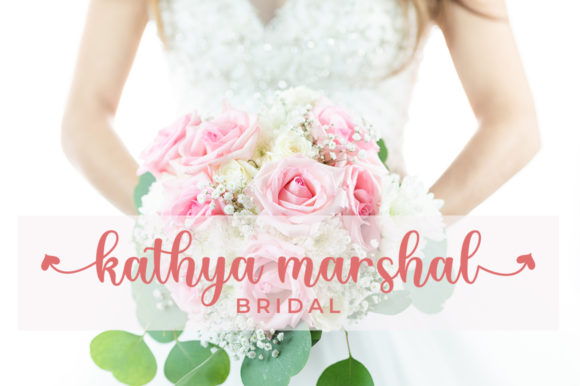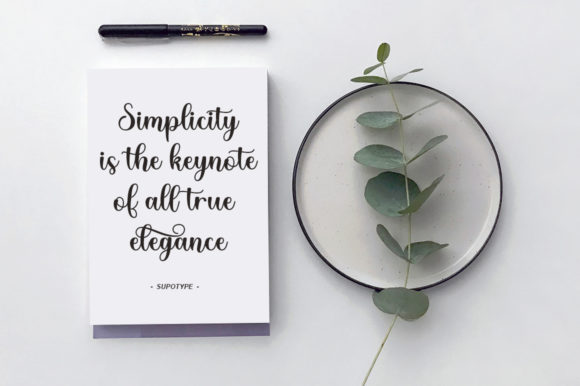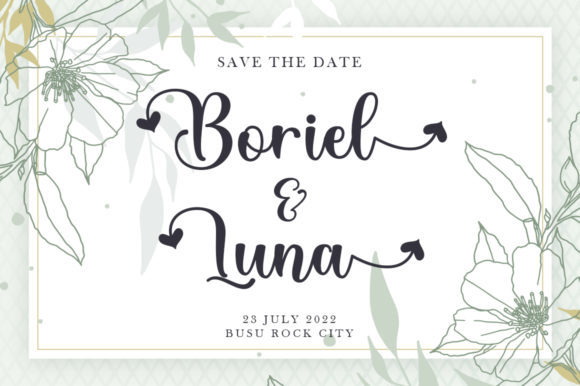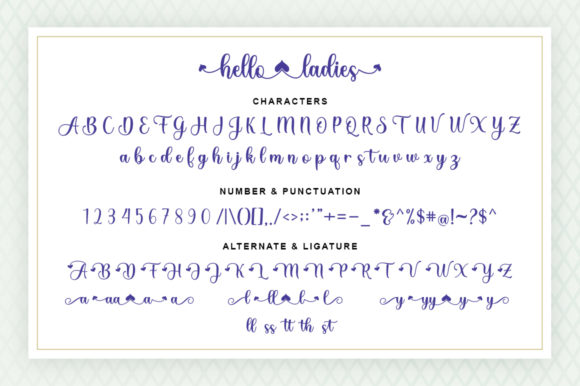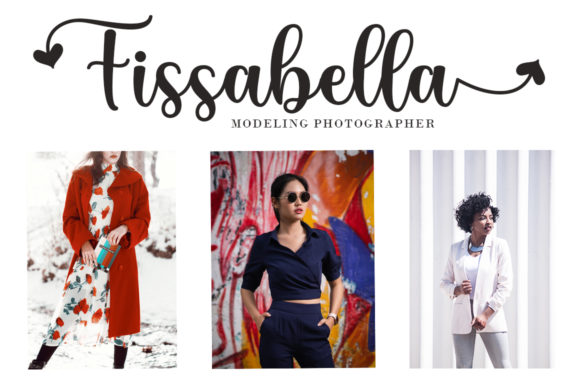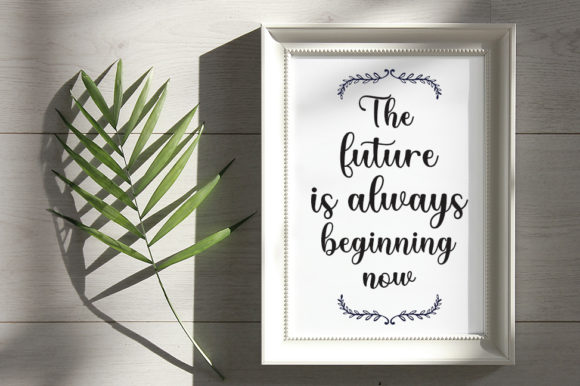
Introducing Beauty Ladies Font: The Ultimate Modern Romantic Handwritten Font
Are you a designer, crafty person, or someone who loves creating stunning visual content? Look no further! We’re excited to introduce the Beauty Ladies Font, a modern and romantic handwritten font that’s perfect for your next project. With its sweet and charming characters, this font is sure to make your posters, flyers, and prints stand out.
What Makes Beauty Ladies Font Special?
Beauty Ladies Font is a beautifully crafted handwritten font that features all round and sweet characters. Its modern and romantic style makes it perfect for a wide range of design projects, from wedding invitations and posters to social media graphics and crafts. The font’s unique and elegant look will add a touch of sophistication and glamour to any design.
One of the best things about Beauty Ladies Font is that it’s PUA (Private Use Area) encoded. This means that you can access all of the glyphs and swashes with ease, giving you more creative freedom and flexibility. With PUA encoding, you can easily switch between different characters and swashes to create a unique and personalized look.
Beauty Ladies Font is perfect for designers and crafters who want to create stunning visual content. Whether you’re creating posters, flyers, invitations, or social media graphics, this font is sure to impress. Its modern and romantic style makes it ideal for a wide range of projects, from weddings and events to fashion and beauty brands.
Key Features of Beauty Ladies Font
- Modern and romantic handwritten font
- Features all round and sweet characters
- Perfect for posters, flyers, invitations, and social media graphics
- Ideal for designers, crafters, and anyone who loves creating visual content
Here are some tips and inspiration to help you get the most out of Beauty Ladies Font:
- Use it for wedding invitations and event posters to add a touch of romance and elegance
- Pair it with bold and modern fonts for a striking contrast
- Use it for social media graphics and branding to create a cohesive and stylish look
Beauty Ladies Font is a stunning modern and romantic handwritten font that’s perfect for designers, crafters, and anyone who loves creating visual content. With its sweet and charming characters, PUA encoding, and ease of use, this font is sure to become a favorite in your design arsenal. So why wait? Download Beauty Ladies Font today and start creating stunning designs that will leave a lasting impression!